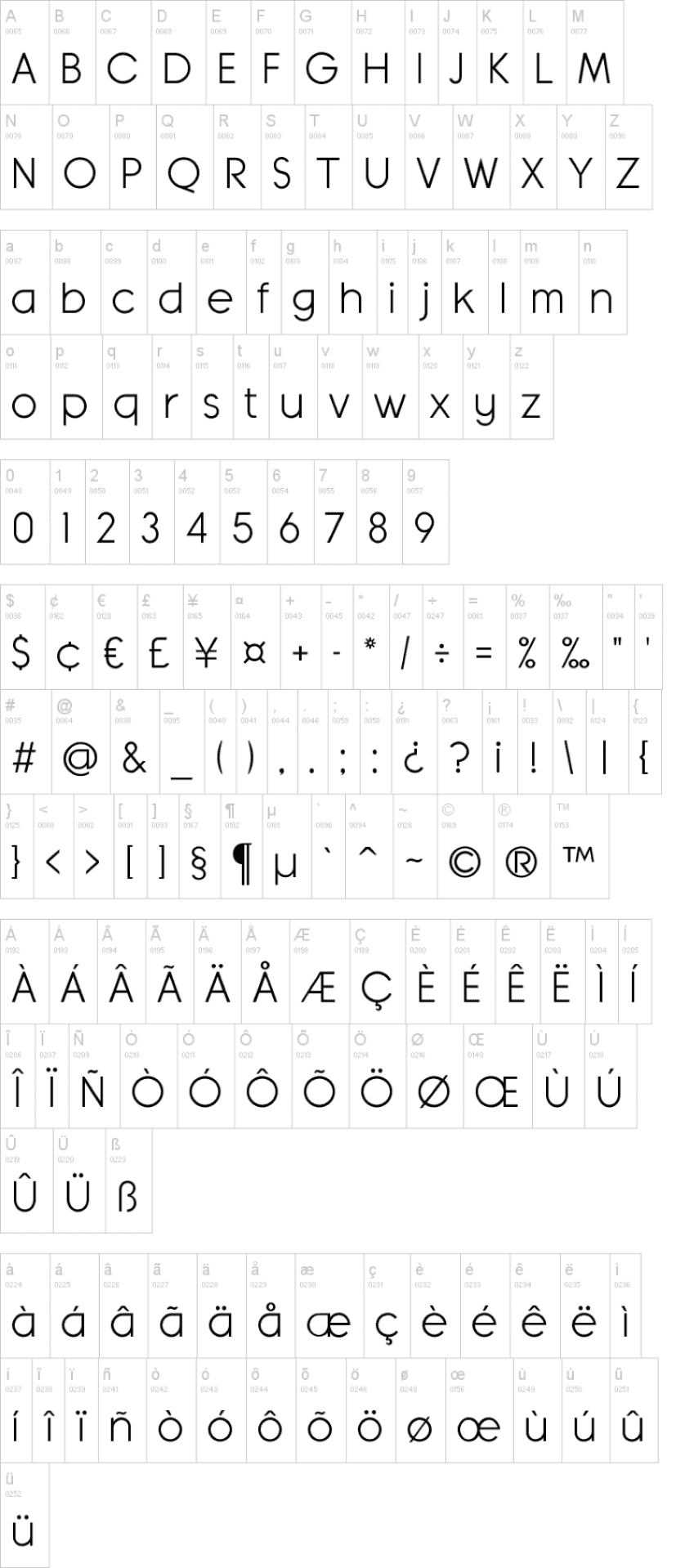
K-Type’s Banks & Miles fonts were influenced by the geometric monoline lettering designed by London design company Banks & Miles for the British Post Office in 1970, a project conceived and overseen by partner John Miles and comprising of ‘Double Line’ and ‘Single Line’ alphabets. The newly designed digital font is a re-imagining and expansion of both alphabets.